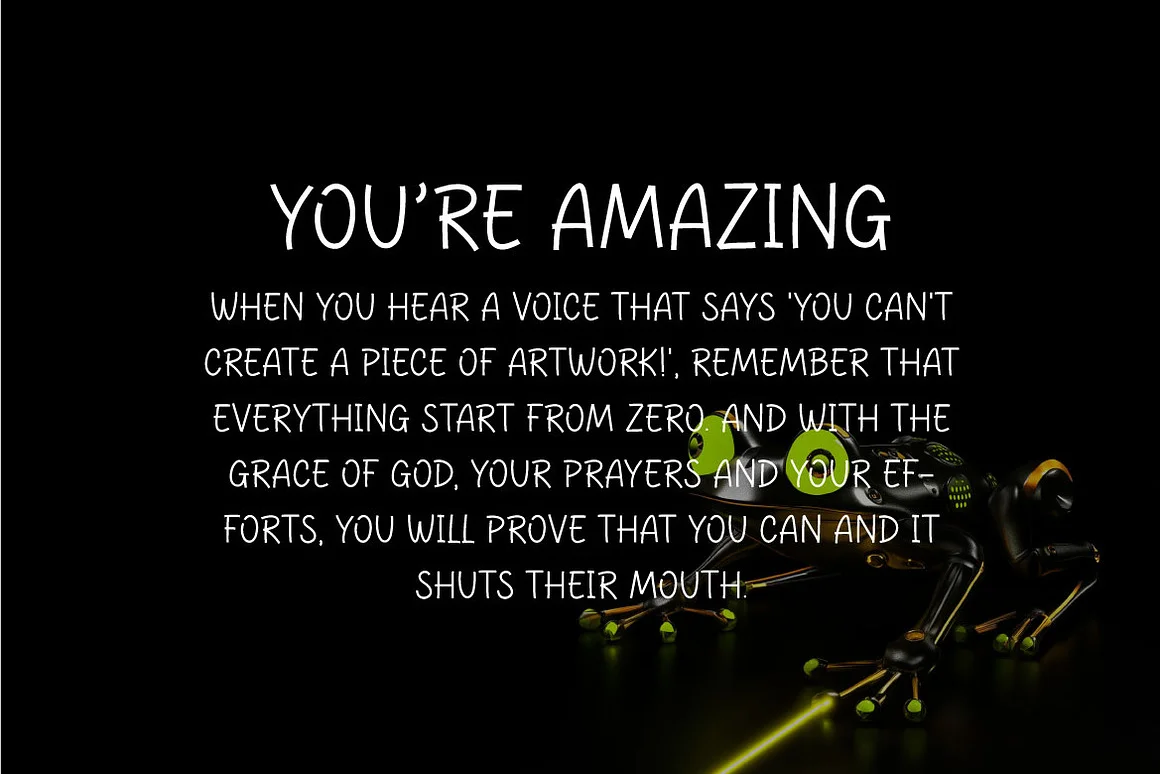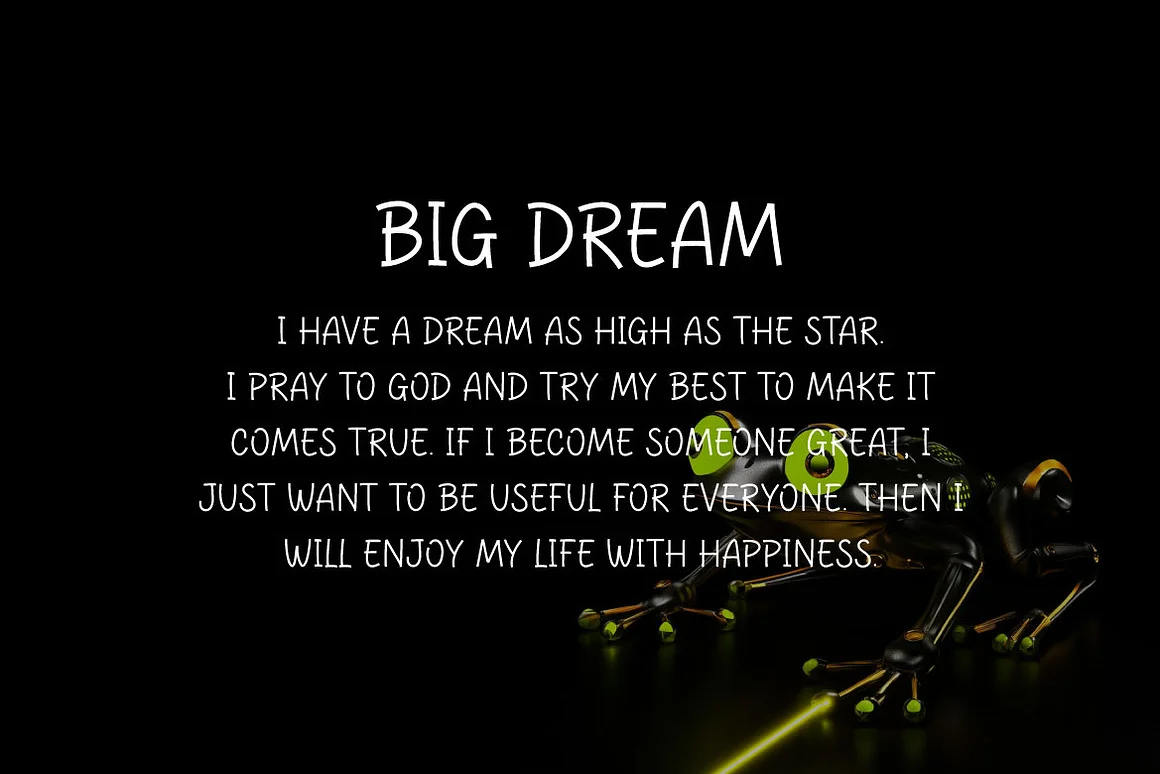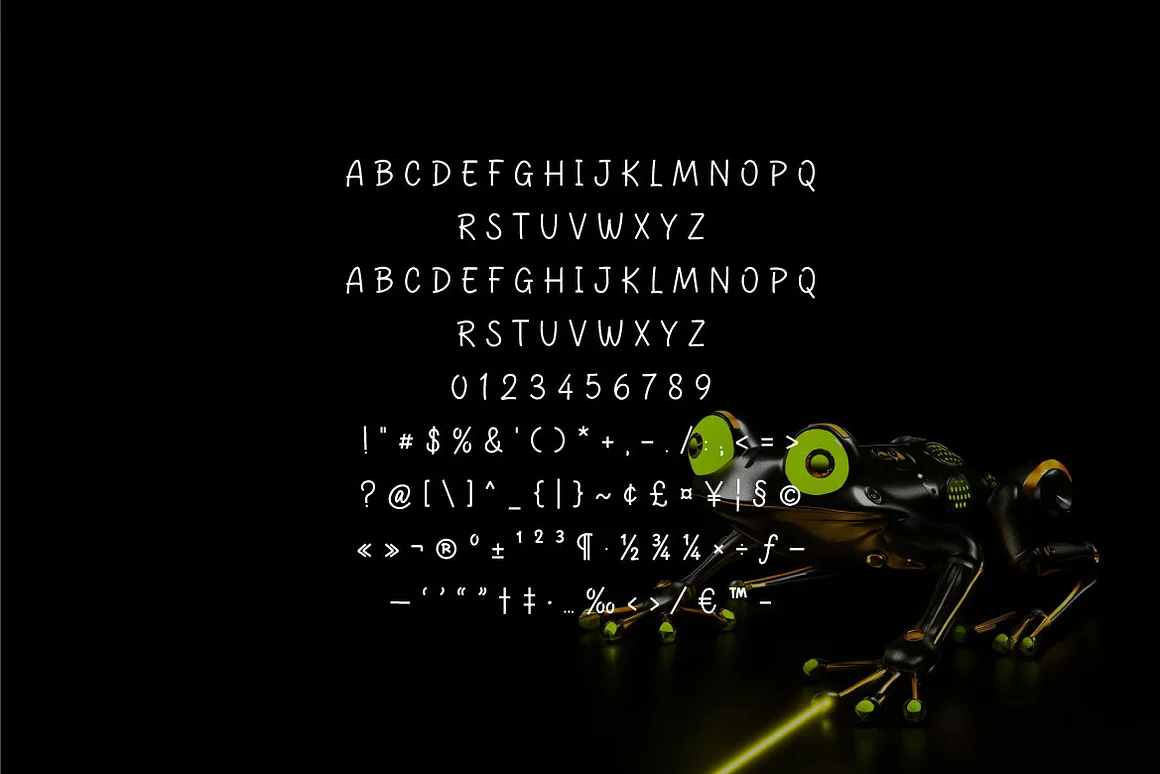
Frogy Beam - Handwritten Comic Font
Introducing Frogy Beam - Handwritten Comic Font, a beautifully crafted thin handwritten font that brings elegance and personality to your designs. With its delicate strokes and graceful curves, this font exudes a natural, authentic handwriting style that is perfect for a wide range of creative projects. This versatile font features clean, thin lines that ensure readability while maintaining a stylish, modern feel. Add a touch of delicate elegance to your designs with Frogy Beam - Handwritten Comic Font and let your creativity flow effortlessly!